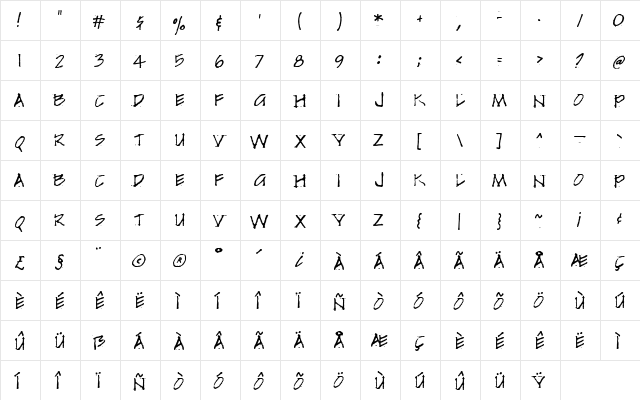
TwoByFour Regular
Design Context for TwoByFour Typeface
TwoByFour is a composed and adaptable typeface that performs quietly and consistently across a wide range of design contexts.